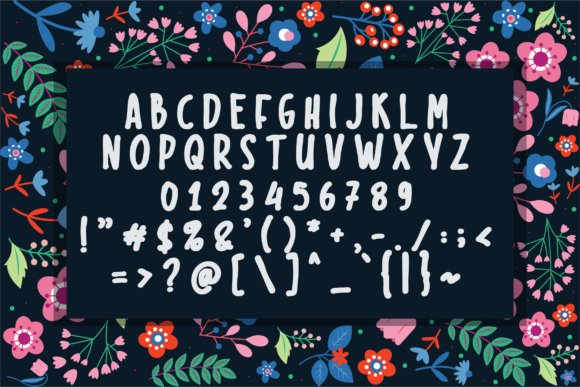
Introducing Handline Font: The Funky, Fresh, and Unique Display Font You Need
In the world of design, fonts play a crucial role in making a project stand out. A unique and eye-catching font can elevate your design and leave a lasting impression on your audience. If you’re tired of using the same old fonts and want to add a touch of personality to your work, look no further than Handline Font. This exciting new display font is here to revolutionize your design projects with its funky, fresh, and modern vibe.
What is Handline Font?
Handline Font is a carefully crafted display font that exudes a sense of fun and playfulness. Its unique design makes it perfect for headlines, titles, and any other text that needs to grab attention. With its irregular shapes and quirky feel, Handline Font adds a touch of whimsy to any design project, making it a true standout.
Key Features of Handline Font
- Unique and quirky design: Handline Font boasts an unconventional design that sets it apart from other fonts. Its irregular shapes and lines give it a fresh and modern look that’s sure to turn heads.
- Funky and playful feel: This font has a fun and carefree vibe that’s perfect for designs that need to be attention-grabbing and engaging.
- Highly versatile: Handline Font can be used for a wide range of design projects, from posters and flyers to social media graphics and website headers.
- Easily readable: Despite its quirky design, Handline Font is surprisingly easy to read, making it perfect for use in titles, headings, and other display text.
Who is Handline Font for?
Handline Font is perfect for designers, crafters, and artists who want to add a touch of personality to their work. Whether you’re creating social media graphics, designing a website, or crafting a poster, this font is sure to help your design stand out from the crowd.
How to Use Handline Font
Design Tips and Tricks
Here are a few design tips and tricks to help you get the most out of Handline Font:
- Use it sparingly: Because of its bold and attention-grabbing design, it’s best to use Handline Font sparingly. Use it for headlines and titles, and pair it with a simpler font for body text.
- Experiment with colors: Handline Font looks great in bold and bright colors. Experiment with different hues and shades to find the perfect color for your design.
- Play with textures: Add some extra depth and interest to your design by pairing Handline Font with textures and patterns.
With Handline Font, you’ll never have to worry about your designs blending in with the crowd again. Its unique and eye-catching design makes it the perfect addition to any project that needs a little extra flair. So go ahead, get creative, and make your designs stand out with Handline Font.